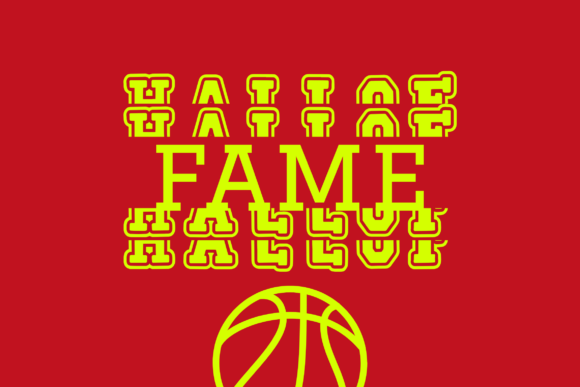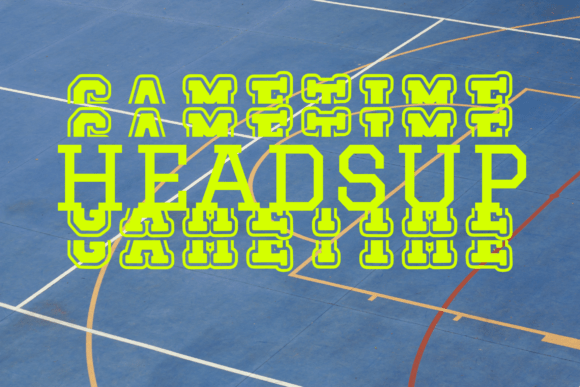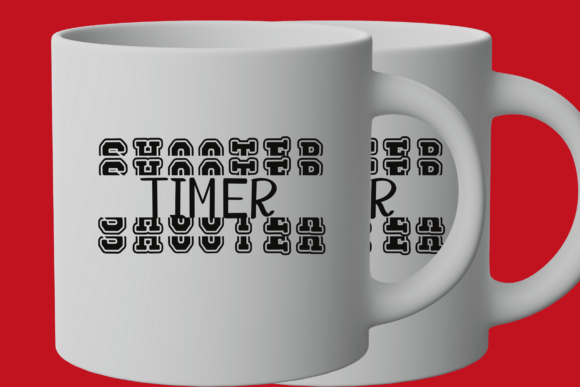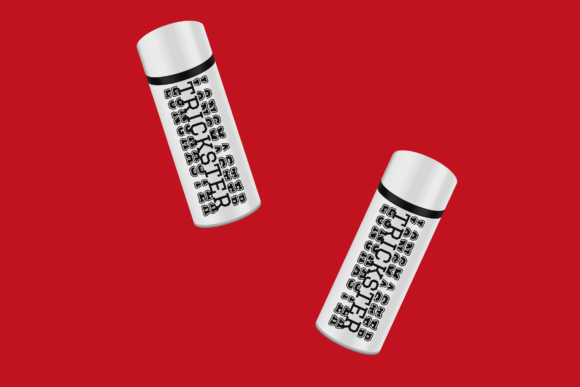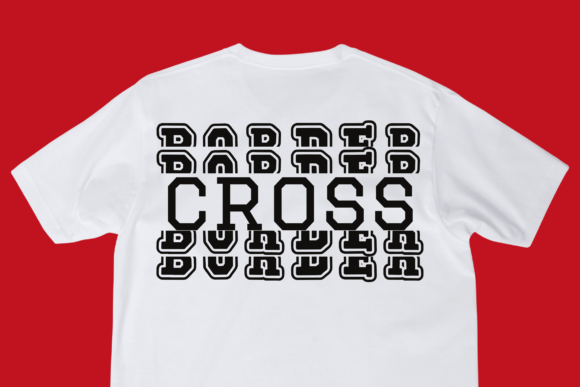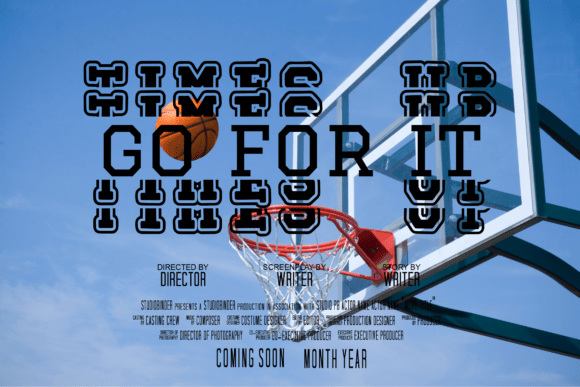
Unleash the Power of Echoline Varsity Font: Elevate Your Designs with a Vintage Sports Spirit
Are you looking for a font that embodies the essence of school spirit, sportsmanship, and vintage charm? Look no further than Echoline Varsity, a striking stacked monogram font that is sure to capture the hearts of designers, crafters, and sports enthusiasts alike. Inspired by traditional varsity lettering, Echoline Varsity is a magnificent choice for anyone seeking to add a touch of nostalgia and authenticity to their creative projects.
The Inspiration Behind Echoline Varsity
Echoline Varsity draws its inspiration from the classic world of varsity sports, where team spirit and school pride reign supreme. The font’s design is characterized by a layered, block-style approach, reminiscent of traditional monogramming and lettering found on sports jerseys, team insignias, and graduation keepsakes. This distinctive style instantly evokes a sense of nostalgia and familiarity, transporting us back to a bygone era of sportsmanship and camaraderie.
Key Features of Echoline Varsity Font
So, what makes Echoline Varsity such a standout font? Here are just a few of its key features:
- Stacked Monogram Design: Echoline Varsity boasts a unique stacked monogram design, perfect for creating striking logos, insignias, and monograms.
- Vintage Sportiness: The font’s vintage-inspired design injects a healthy dose of sportsmanship and school spirit into any project.
- Layered, Block-Style Approach: The font’s layered, block-style design adds depth and dimensionality to your designs.
- Highly Versatile: Echoline Varsity is perfect for a wide range of applications, from sports team concepts and pep rally designs to spirit wear collections and graduation keepsakes.
Echoline Varsity is a dream come true for designers and crafters seeking to add a touch of authenticity and vintage charm to their projects. Whether you’re working on:
- Sports team logos and branding
- Pep rally designs and flyers
- Spirit wear collections and apparel
- Graduation keepsakes and announcements
- Educational identity and marketing materials
Echoline Varsity is the perfect choice. The font’s flexibility and versatility make it easy to use in a wide range of creative projects, from digital designs to print materials.
Enhance Your Work with Echoline Varsity
So, how can Echoline Varsity enhance your work? Here are just a few examples:
- Add a Touch of Authenticity: Echoline Varsity’s vintage-inspired design instantly adds a touch of authenticity to your projects, transporting your audience back to a bygone era of sportsmanship and school spirit.
- Boost Credibility: The font’s striking, layered design lends an air of credibility and professionalism to your work, perfect for creating high-quality designs that stand out from the crowd.
- Inject Energy and Enthusiasm: Echoline Varsity’s sporty, dynamic design injects a healthy dose of energy and enthusiasm into your projects, perfect for capturing the excitement and passion of sports teams and school spirit.
In conclusion, Echoline Varsity is a truly unique and exceptional font that embodies the essence of school spirit, sportsmanship, and vintage charm. With its striking stacked monogram design, layered block-style approach, and highly versatile nature, Echoline Varsity is the perfect choice for designers, crafters, and sports enthusiasts alike. Whether you’re working on sports team concepts, pep rally designs, or spirit wear collections, Echoline Varsity is sure to elevate your work and add a touch of authenticity and credibility. So why wait? Capture the power of Echoline Varsity font today and unleash the spirit of school pride and sportsmanship in your designs!